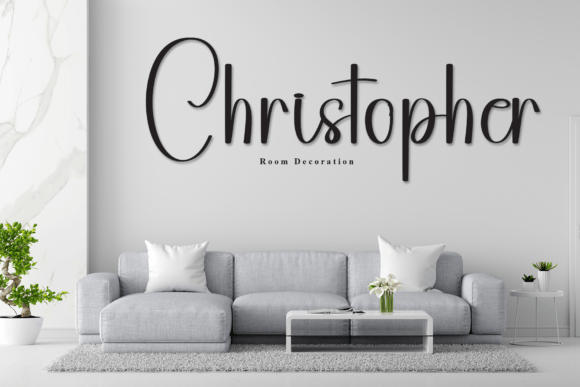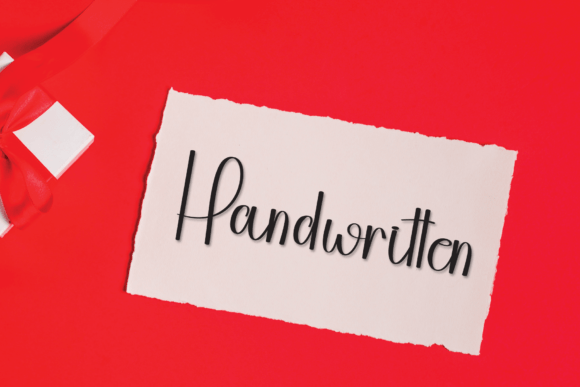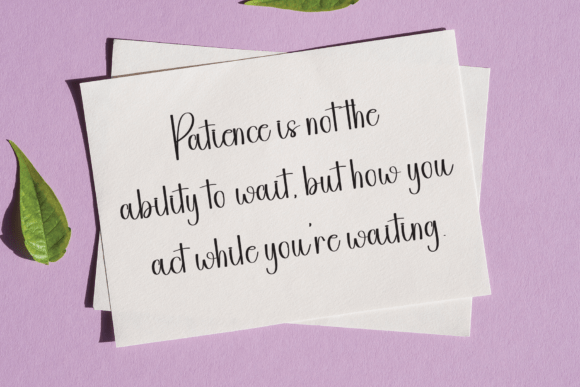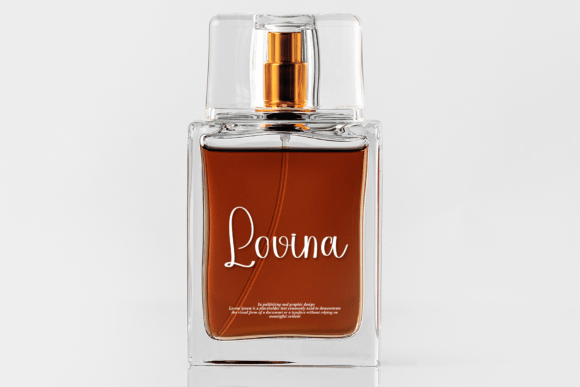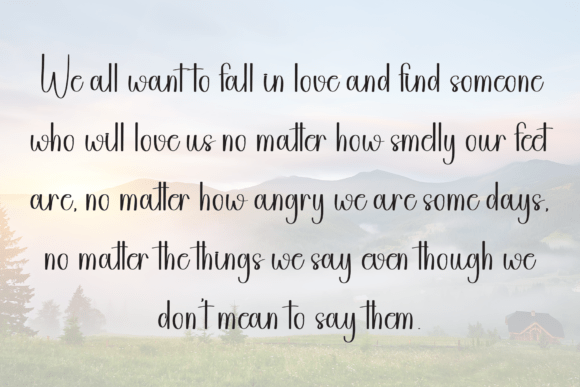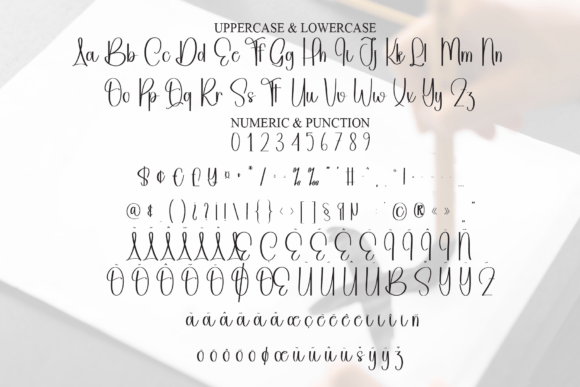
The Art of Elegant Expression
Do you remember the moment when you first picked up a pen and paper, and the words just flowed effortlessly onto the page? It’s a sensation that never gets old, and one that can be achieved with the right tools. For designers and creatives, finding the perfect font can be a game-changer, and that’s where the Caligraphy Font comes in.
This clean and minimal script font is designed to make a statement without overwhelming the senses. With its neat, rounded strokes and modern flair, it’s the perfect choice for journals, planners, online content, and personal branding where readability and simplicity are key. Whether you’re a seasoned designer or just starting out, the Caligraphy Font is a valuable addition to your toolkit.
Caligraphy Font Key Features
- Font Family: Caligraphy Font is a unique, elegant script font designed for formal and creative applications.
- Unique Characteristics: Features intricate, flowing connections between letters, giving it a luxurious and sophisticated feel.
Review of Caligraphy Font
Overall, I found the Caligraphy Font to be a solid choice for designers looking to add a touch of elegance to their projects. ✨ One of the things that works well is its versatility – it can be used for a wide range of applications, from wedding invitations to restaurant menus. The font is also highly customizable, with a range of weights and styles to choose from.
- ✨ Beautiful, hand-written feel that adds a touch of sophistication to any design
- ✨ Highly customizable, with a range of weights and styles to choose from
- ✨ Suitable for a wide range of applications, from wedding invitations to restaurant menus
However, there are a few limitations to consider. ⚠️ One of the main issues is that the font can be quite dense, which can make it difficult to read in smaller sizes. Additionally, the font may not be suitable for digital applications, such as web design or mobile apps, where legibility is critical.
- ⚠️ Can be quite dense, making it difficult to read in smaller sizes
- ⚠️ May not be suitable for digital applications, such as web design or mobile apps
Overall, I would recommend the Caligraphy Font to designers who are looking for a high-end, elegant feel for their projects. While it may have some limitations, the font’s versatility and customizability make it a solid choice for a wide range of applications.
Practical Application Guide for Calligraphy Font